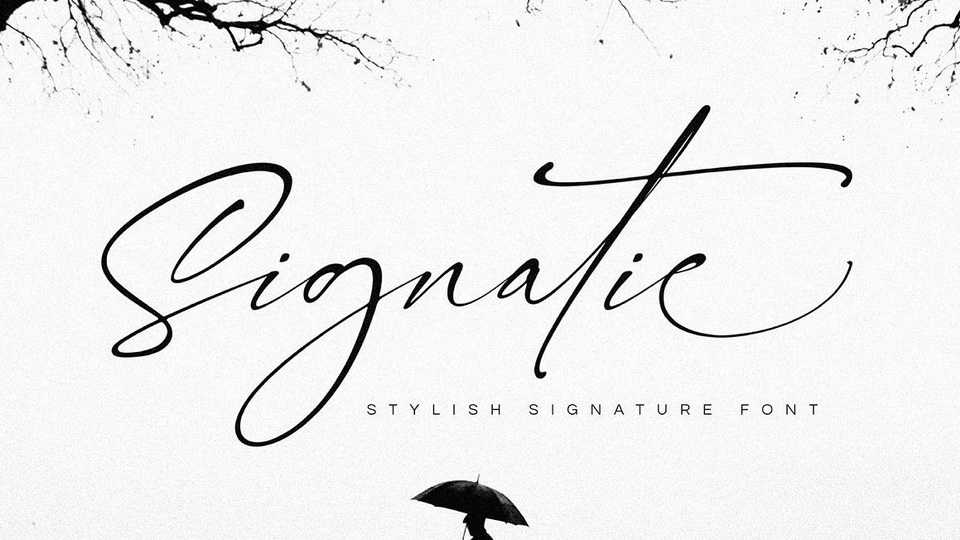
Download Signatie font, a stylish signature typeface for those of you who are needing a touch of elegant, chic and modernity for your designs. Signatie has smooth texture, so would be perfect for all types of printing techniques.